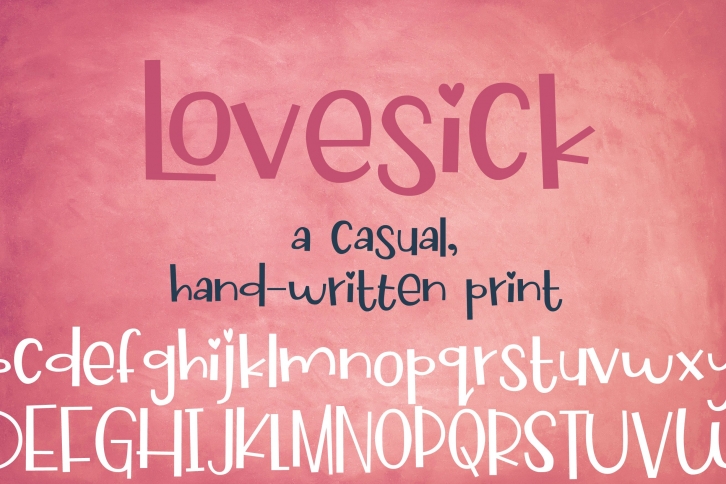
ZP Lovesick is a trendy and unique font with an authentic style. It was designed by Illustration Ink and it's a great choice for creative people who need such a font. It was released on March 16, 2022 and the file size is 4.22 MB. ZP Lovesick will add an organic vibe to any design idea!